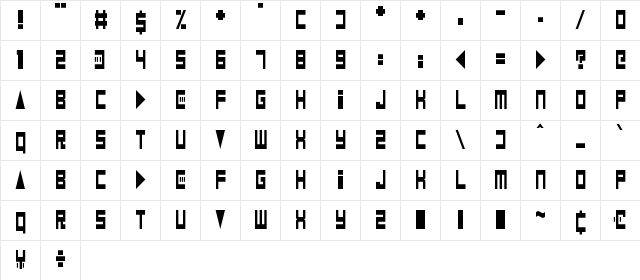
Game Over Dude Regular
| Designer | Darrell Flood |
Design Context for Game Over Dude Typeface
Game Over Dude is a composed and adaptable typeface that performs quietly and consistently across a wide range of design contexts.